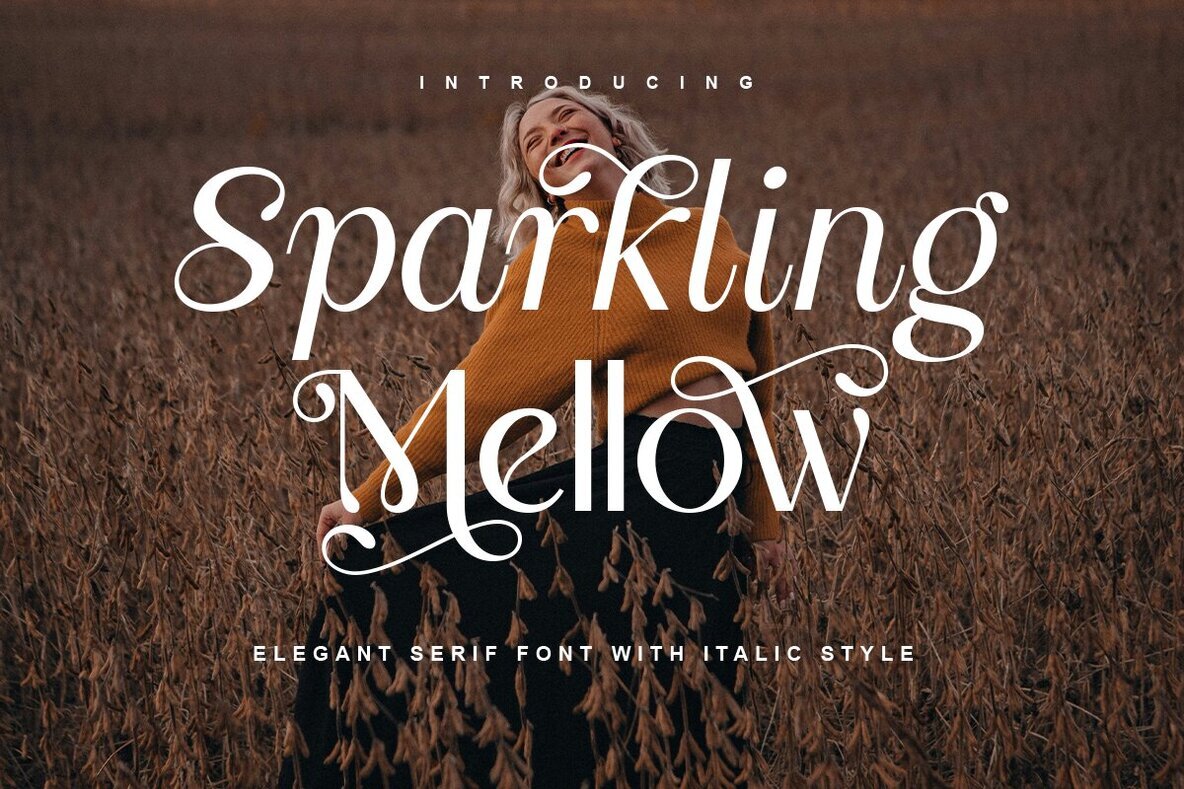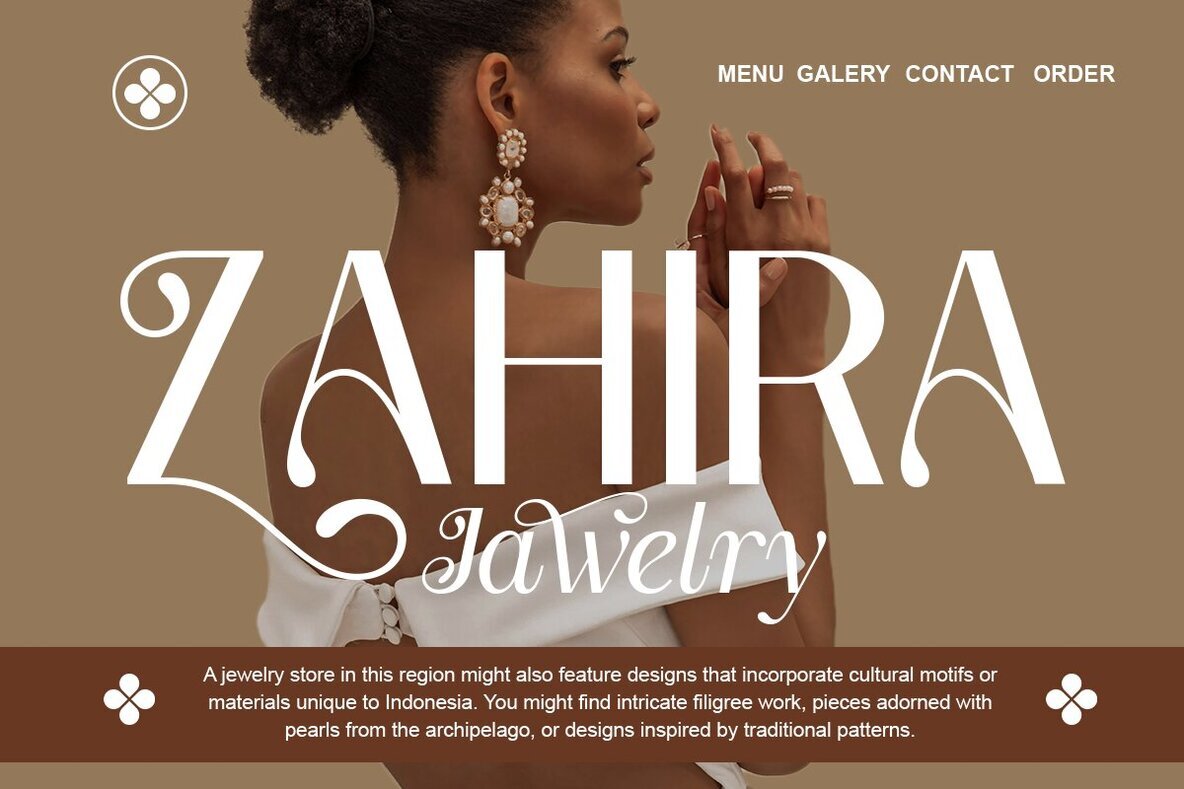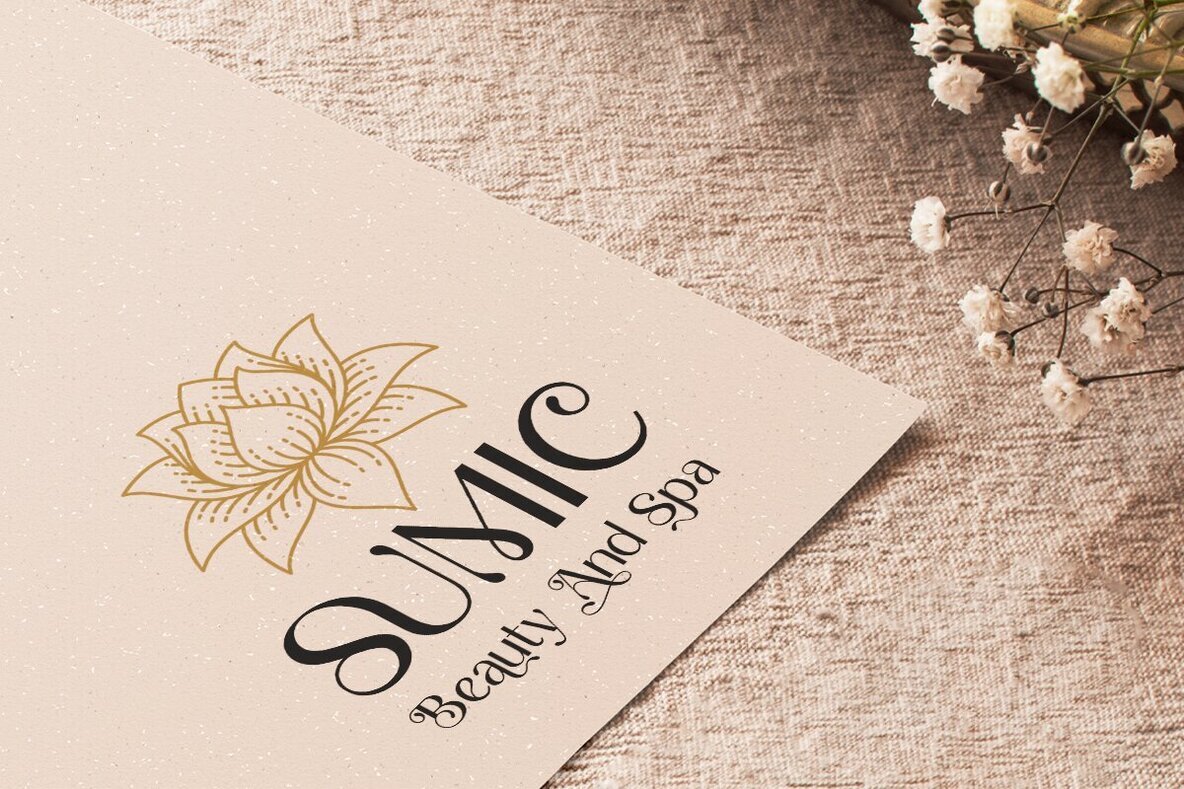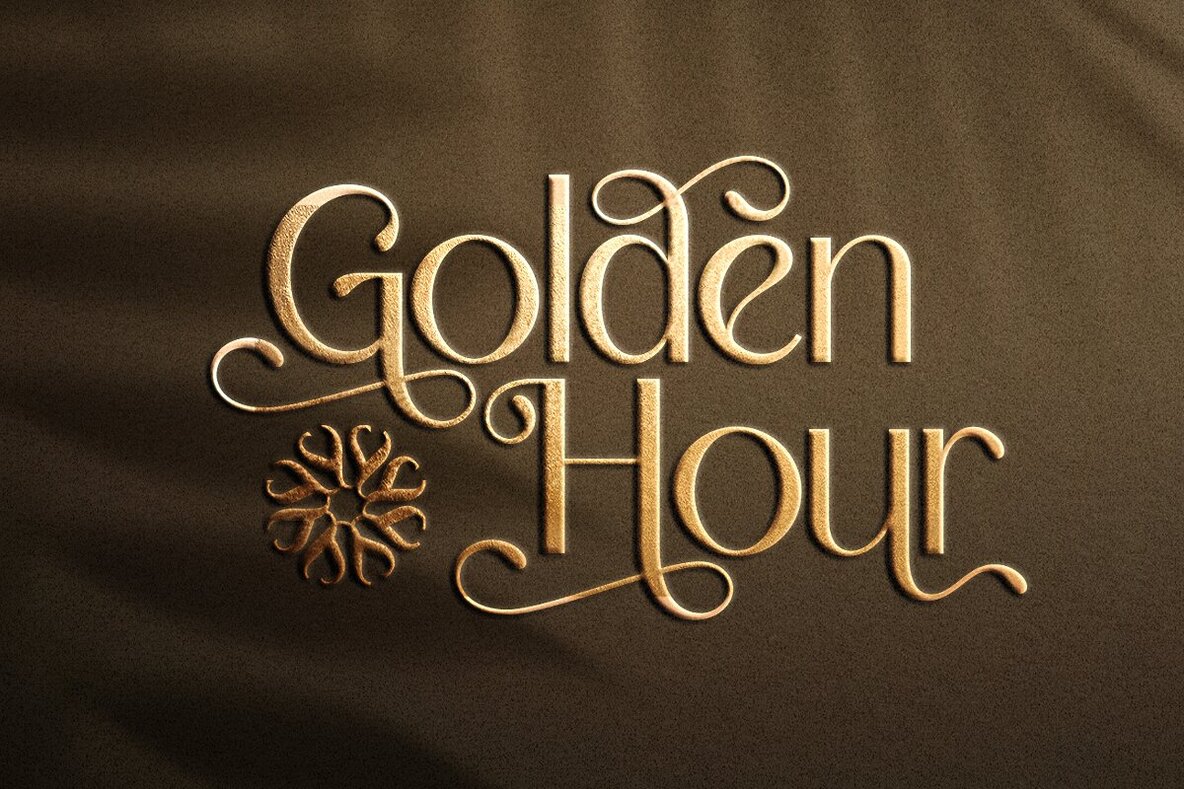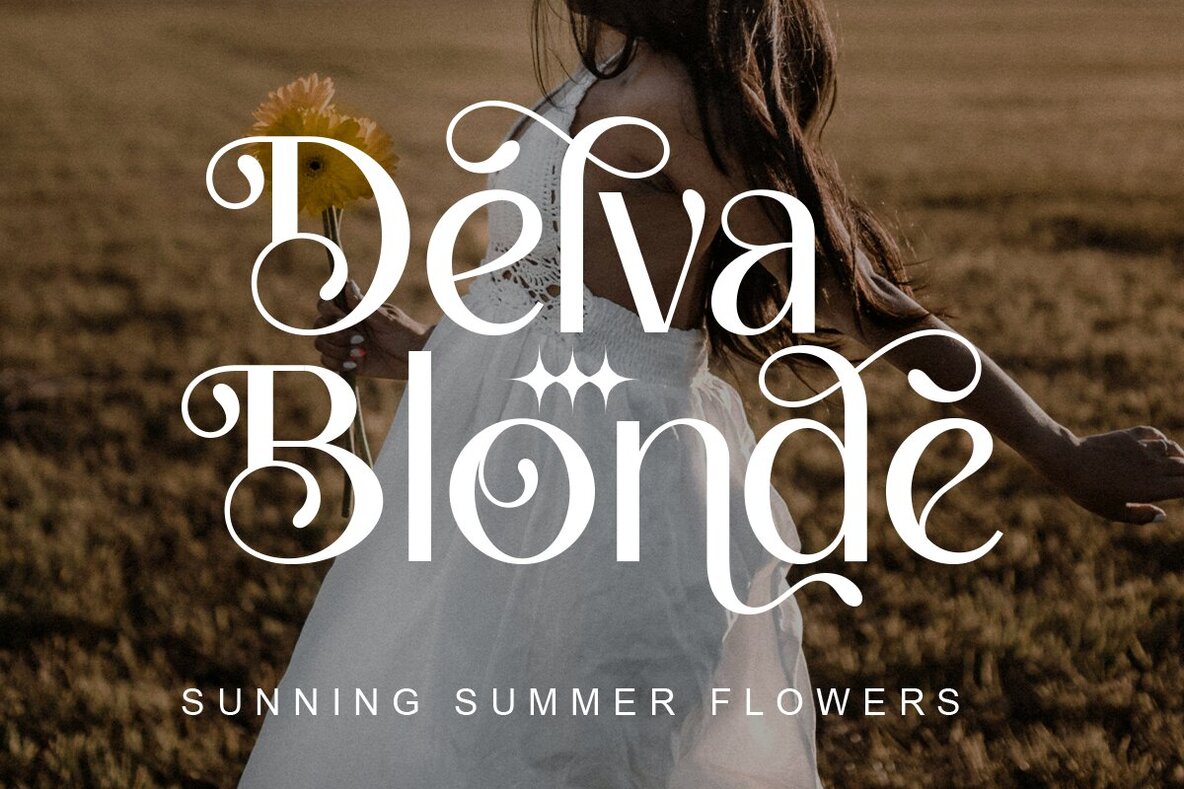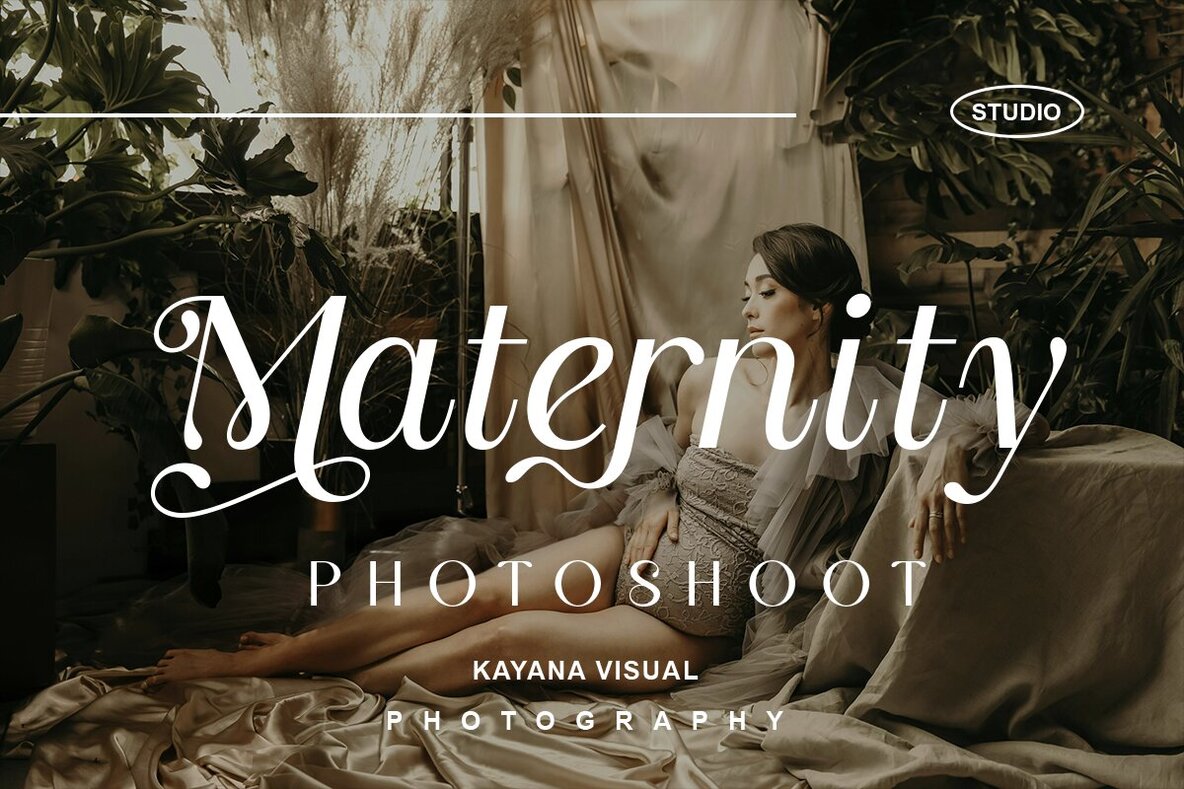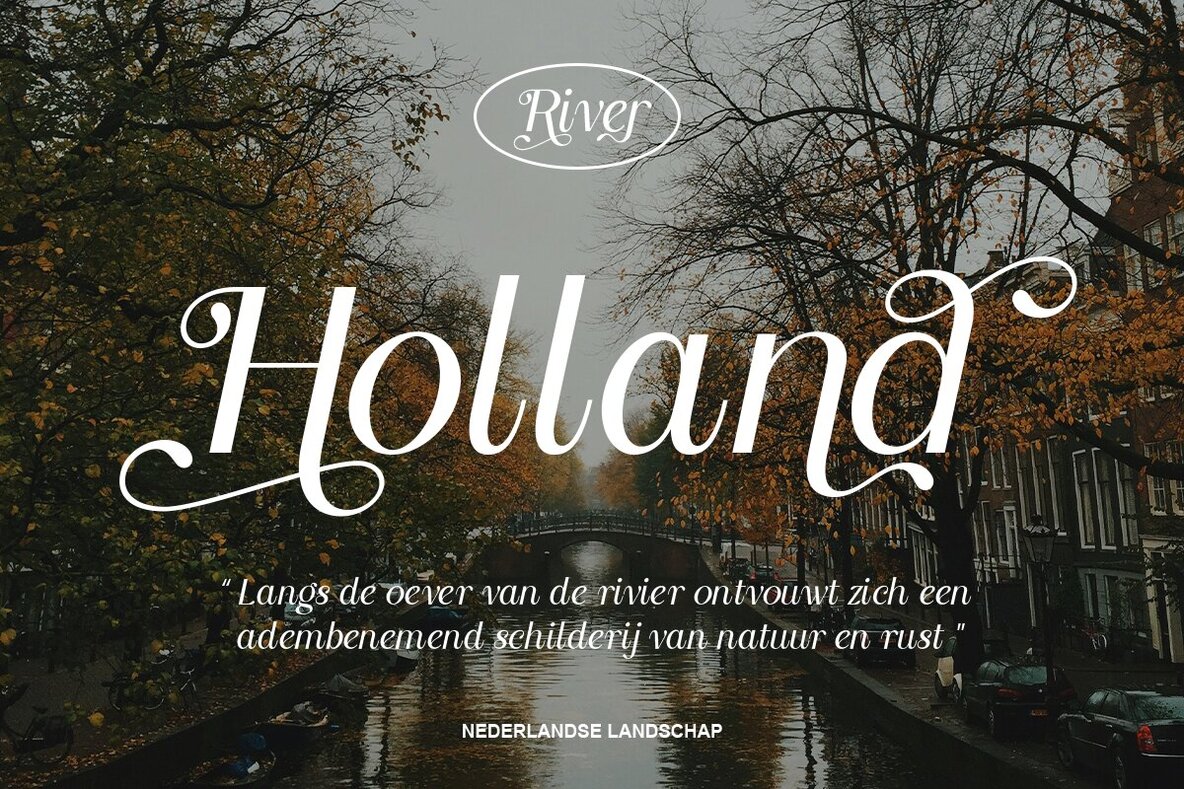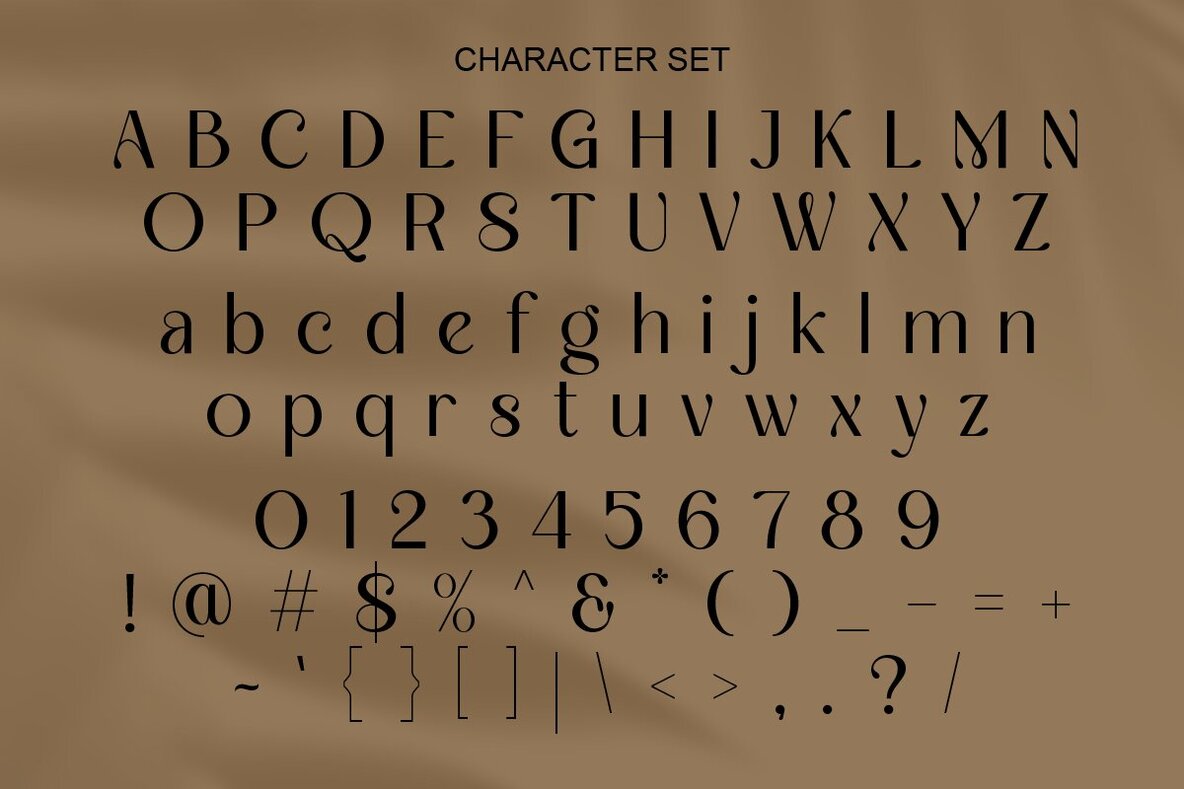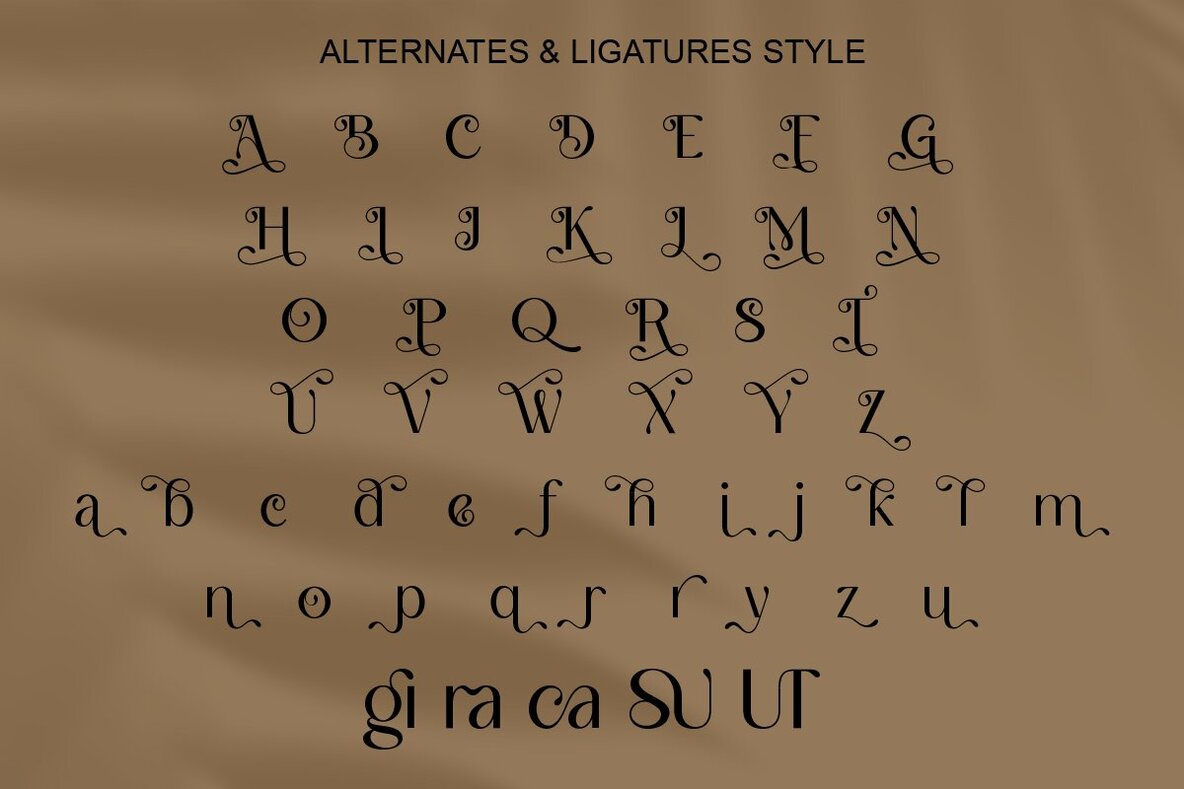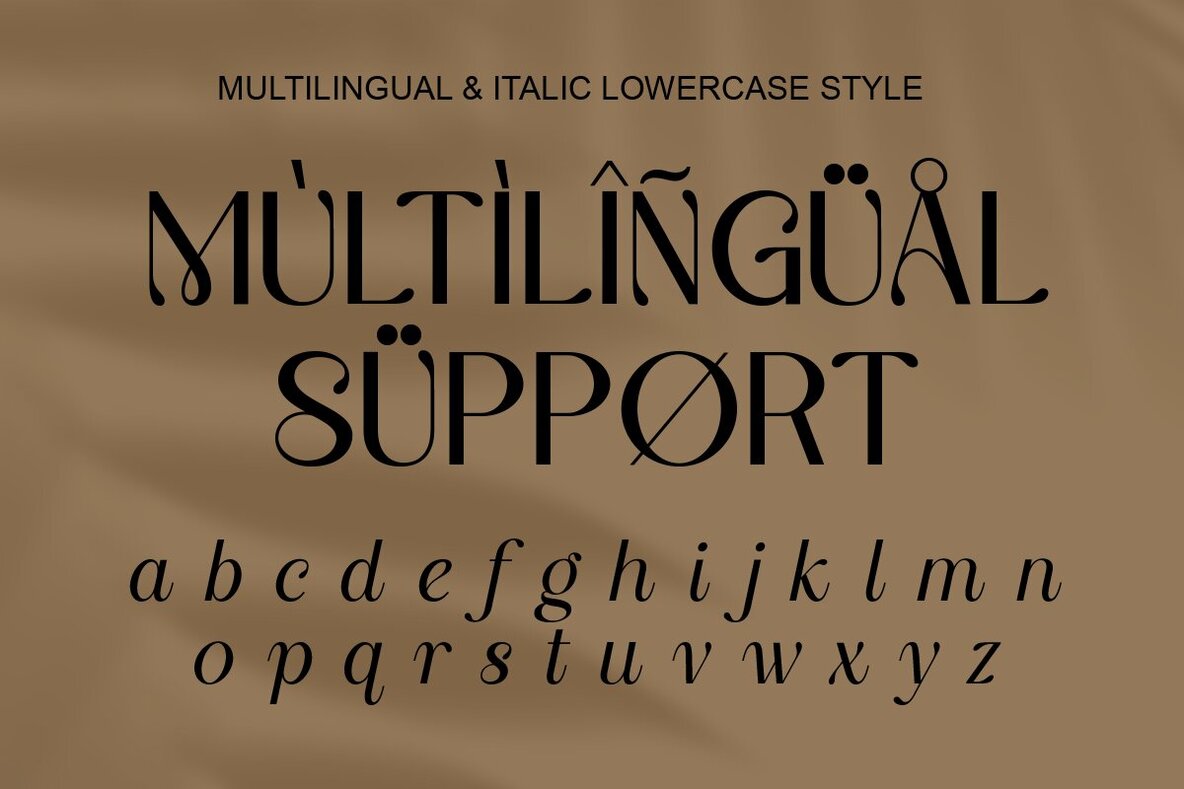
Sparkling Mellow Font
Discover the refined elegance of the Sparkling Mellow Sans Serif font. Designed with a modern and minimalist aesthetic, this typeface infuses a sense of luxury and class into any project. Enhance your websites, contemporary logos, brand identities, social media quotes, wedding stationery, and magazines with its clean lines and understated style. The subtle swoosh in Sparkling Mellow, along with its inherent beauty, ensures your creations stand out with grace. Its versatility is perfect for those seeking a sophisticated look. Experience the harmonious blend of elegance and modernity with Sparkling Mellow.Sparkling Mellow Elegant Sans Serif Font